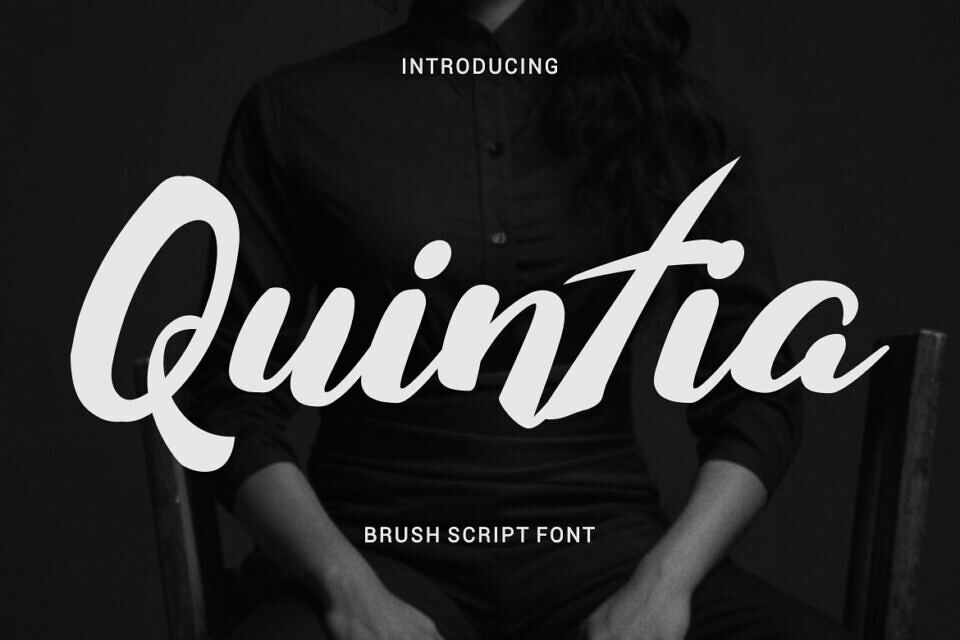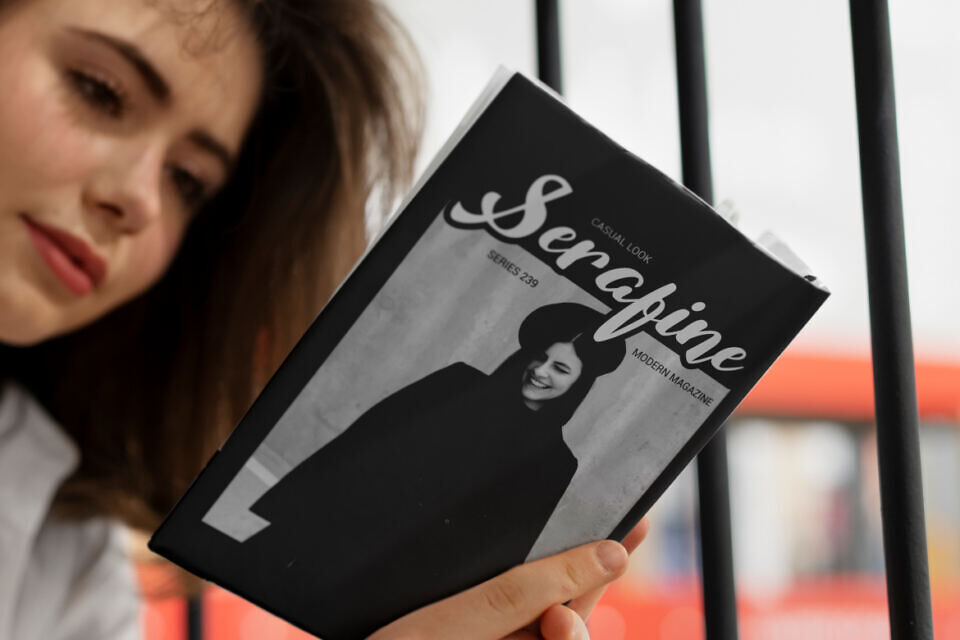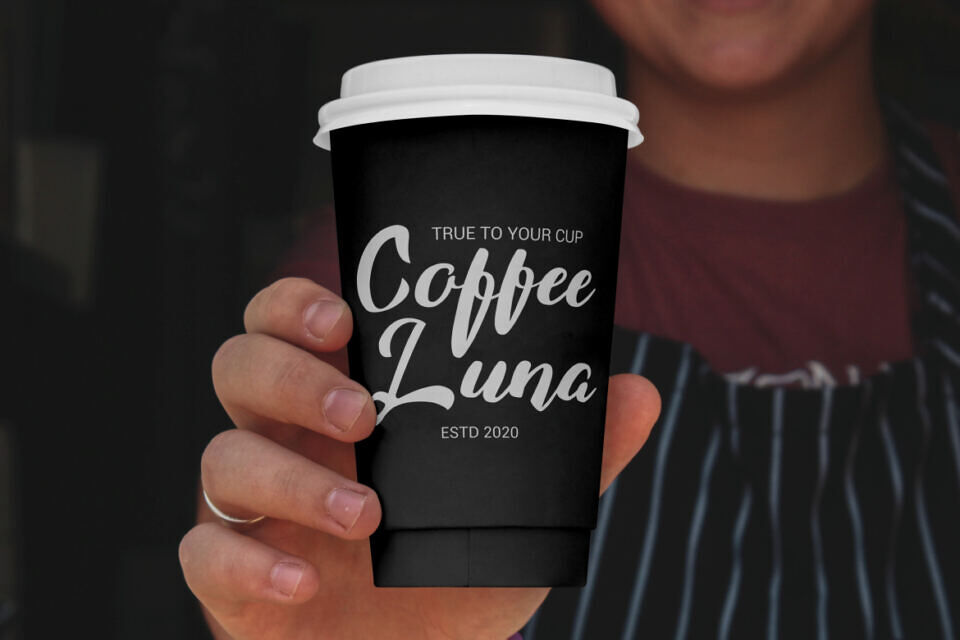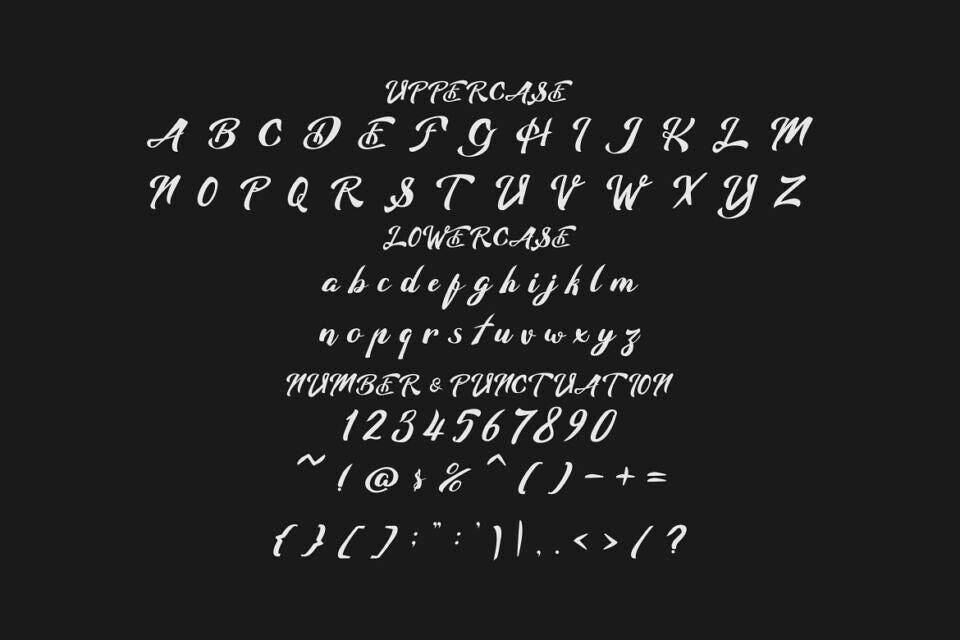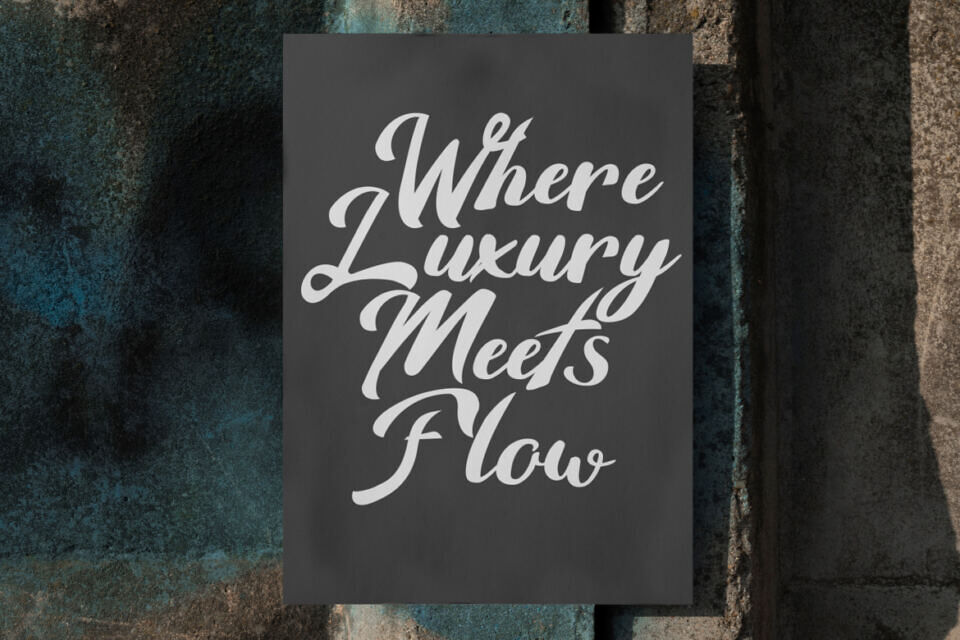
Quintia Font
Quintia font exudes confidence with its smooth, flowing letters and balanced design. Natural brushstrokes and subtle contrasts create a refined, organic feel. Rounded curves and soft angles add personality, while proportioned height ensures a graceful flow.
Quintia Font works especially well for logos, branding systems, headlines, posters, packaging, and social media graphics. It also performs beautifully on invitations, greeting cards, product labels, magazine covers, book covers, stickers, and film titles. The modern brush style makes it suitable for fashion brands, cafés, lifestyle products, creative businesses, and personal brands.